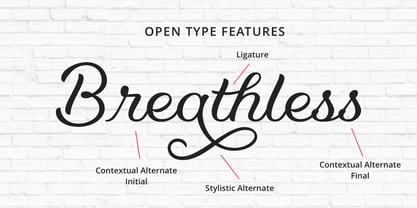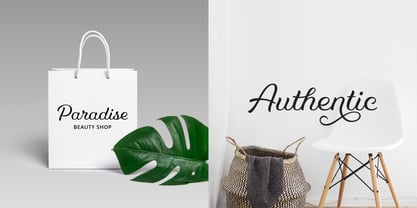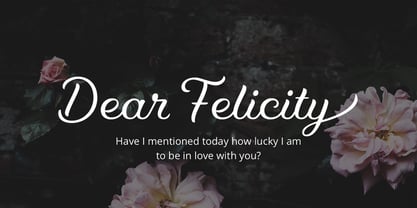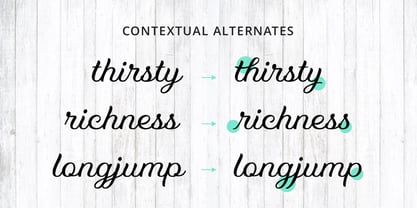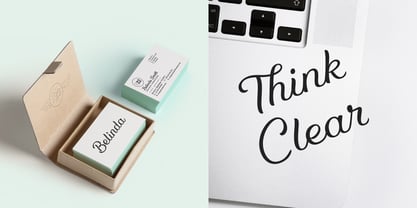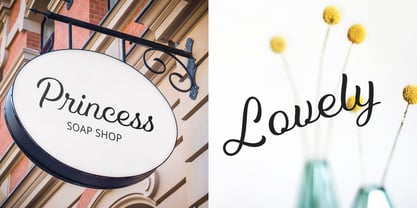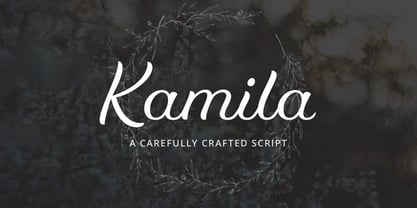
Kamila Font
Kamila Font is perfect for feminine branding, beauty product packaging, elegant fashion labels, romantic wedding stationery, sophisticated lifestyle magazines, boutique logos, graceful greeting cards, delicate jewelry branding, upscale spa marketing, and refined social media graphics.
What makes Kamila Font so exciting is its graceful femininity that combines elegant sophistication with contemporary versatility. This beautiful typeface embodies refined charm and gentle strength, creating typography that speaks directly to discerning audiences who appreciate delicate beauty and timeless elegance.
The Kamila Font family includes light, regular, medium, and bold weights, complete with italic variations and elegant stylistic alternates, providing designers with comprehensive options for creating sophisticated and memorable feminine design solutions.
The delicately proportioned letterforms of Kamila Font showcase refined craftsmanship with gentle curves and graceful details that create instant visual appeal and memorable brand recognition. Each character displays careful attention to feminine design principles while maintaining excellent readability and professional versatility across all applications. The font's elegant proportions and harmonious spacing contribute to its sophisticated appearance and premium quality.
Beauty brands and feminine-focused designers consistently choose Kamila Font for projects requiring elegant sophistication and graceful appeal. The comprehensive character set includes uppercase and lowercase letters, numerals, extensive punctuation, international accents, and stylistic features that provide complete support for luxury feminine branding and sophisticated design applications.
The timeless elegance of Kamila Font ensures exceptional performance across both traditional print and modern digital platforms. Whether developing beauty brand identities, creating elegant packaging designs, or designing sophisticated marketing materials, this remarkable typeface delivers consistent grace that resonates with audiences who appreciate refined feminine aesthetics.